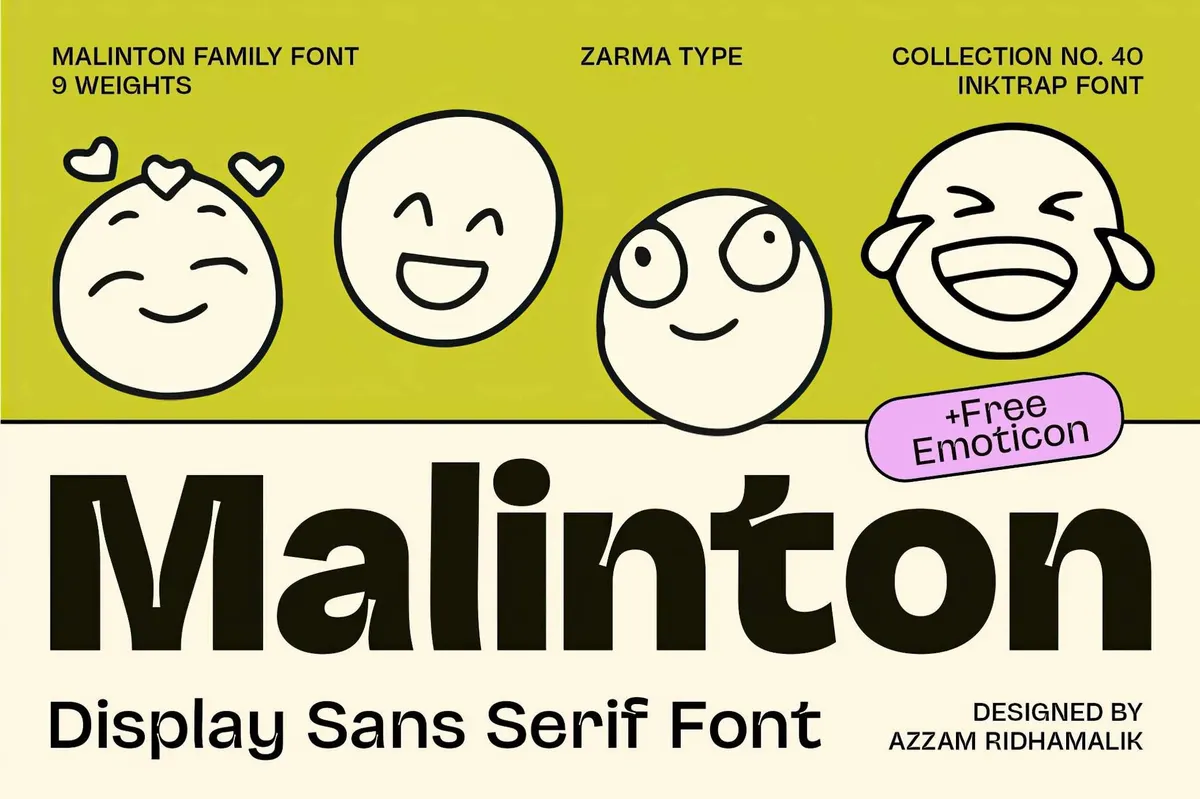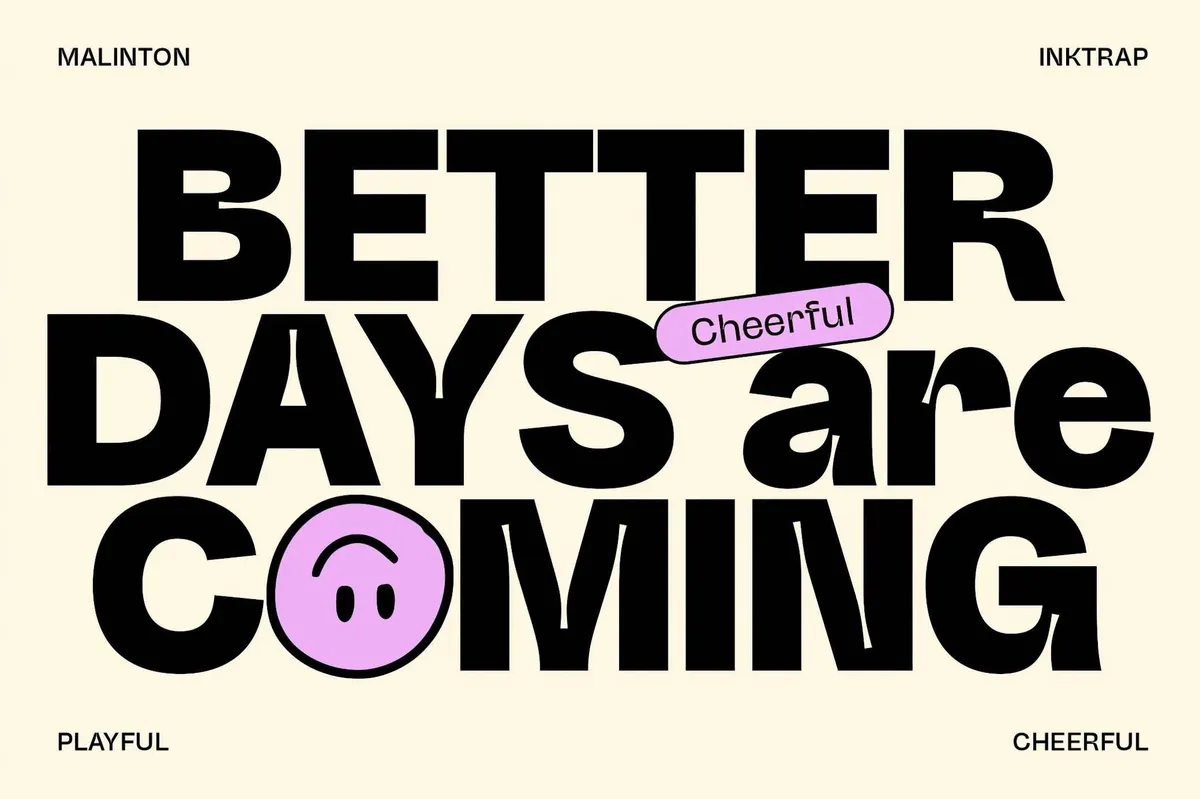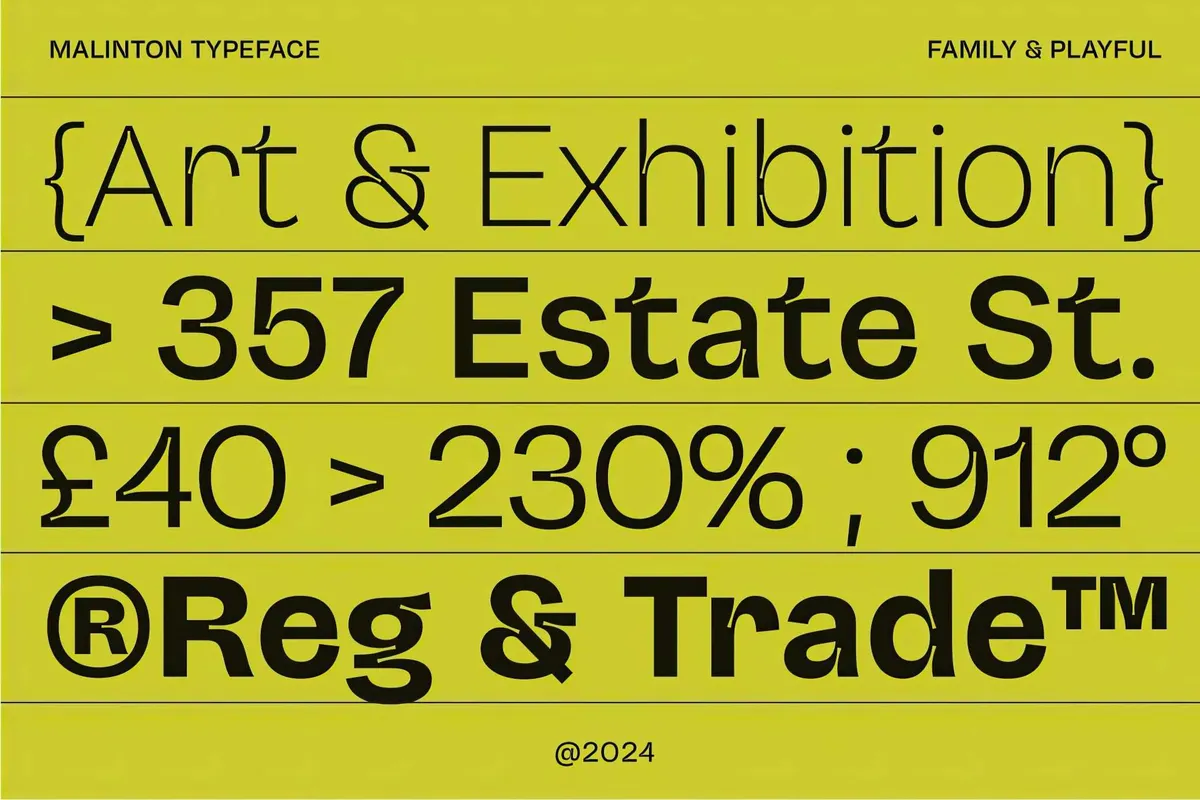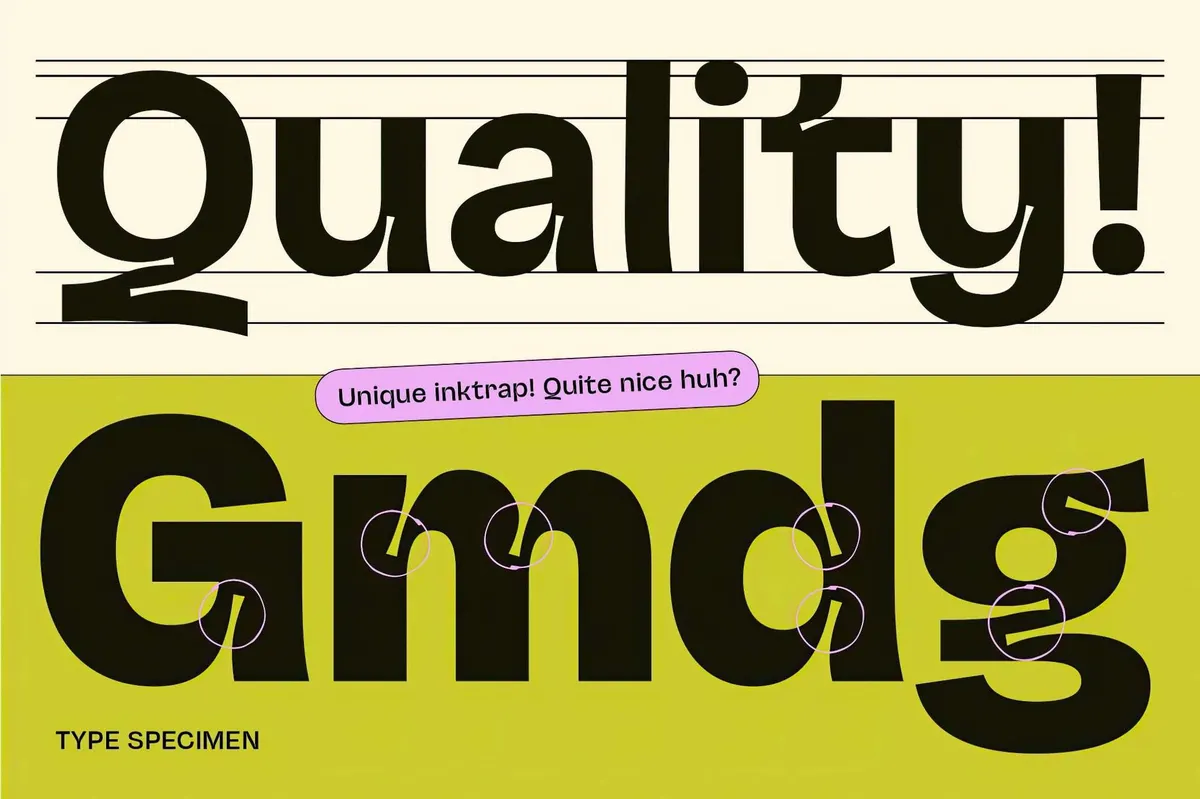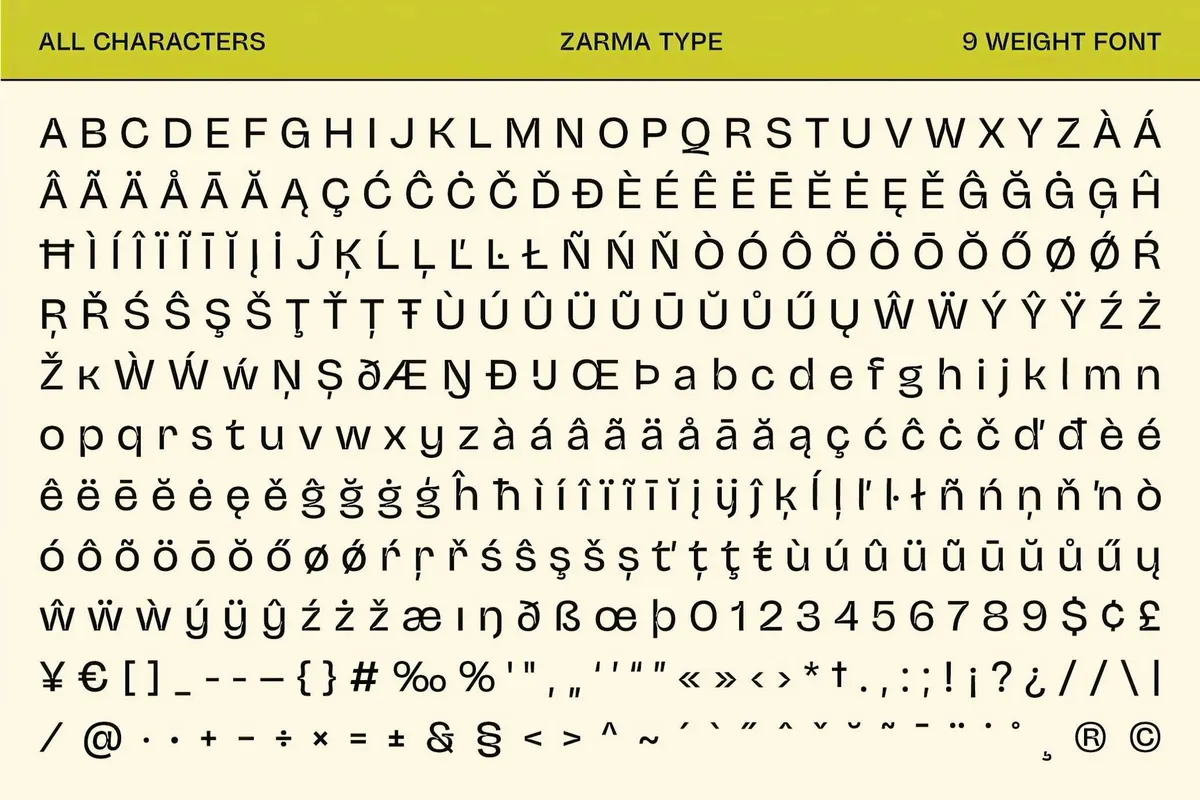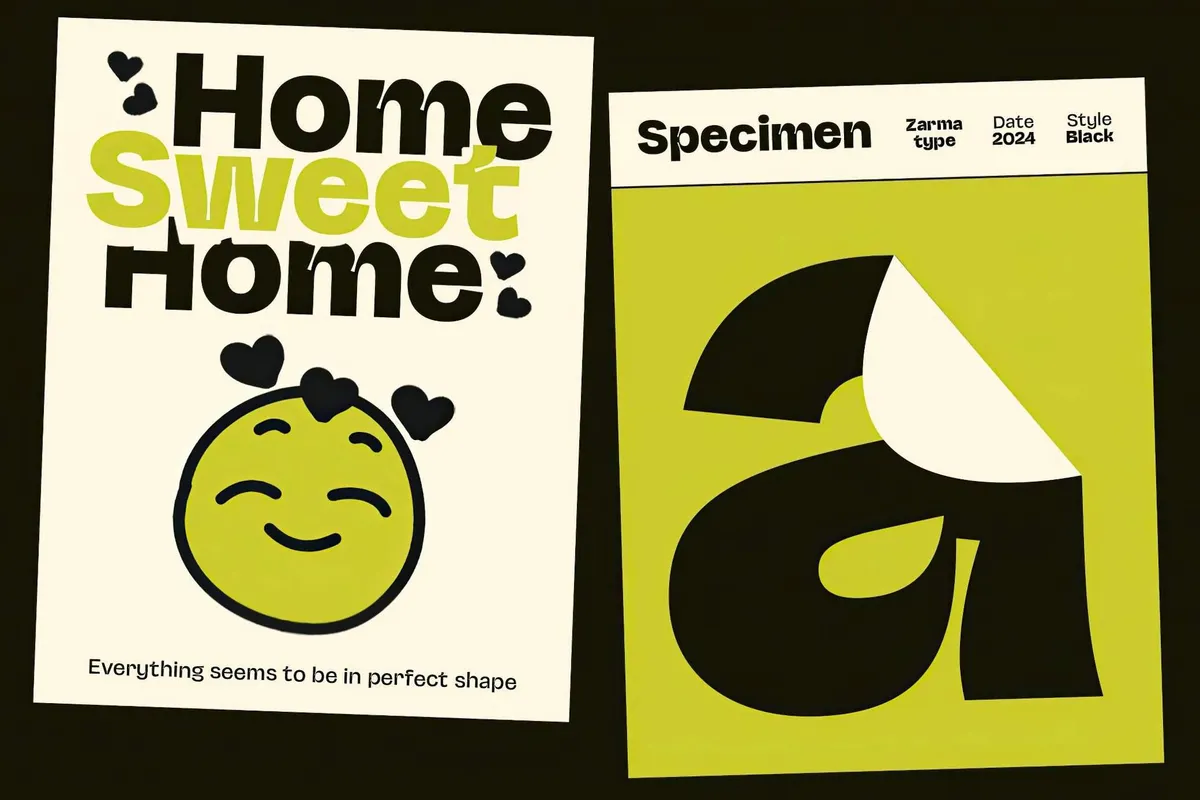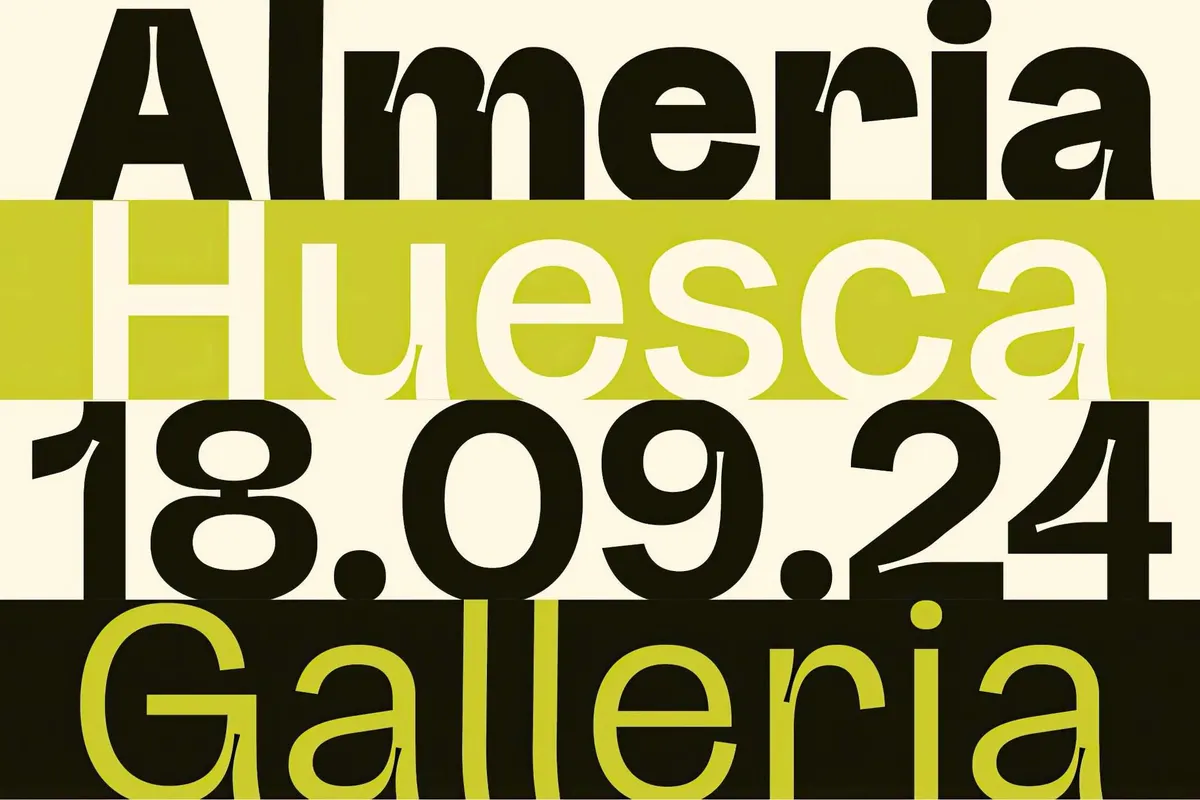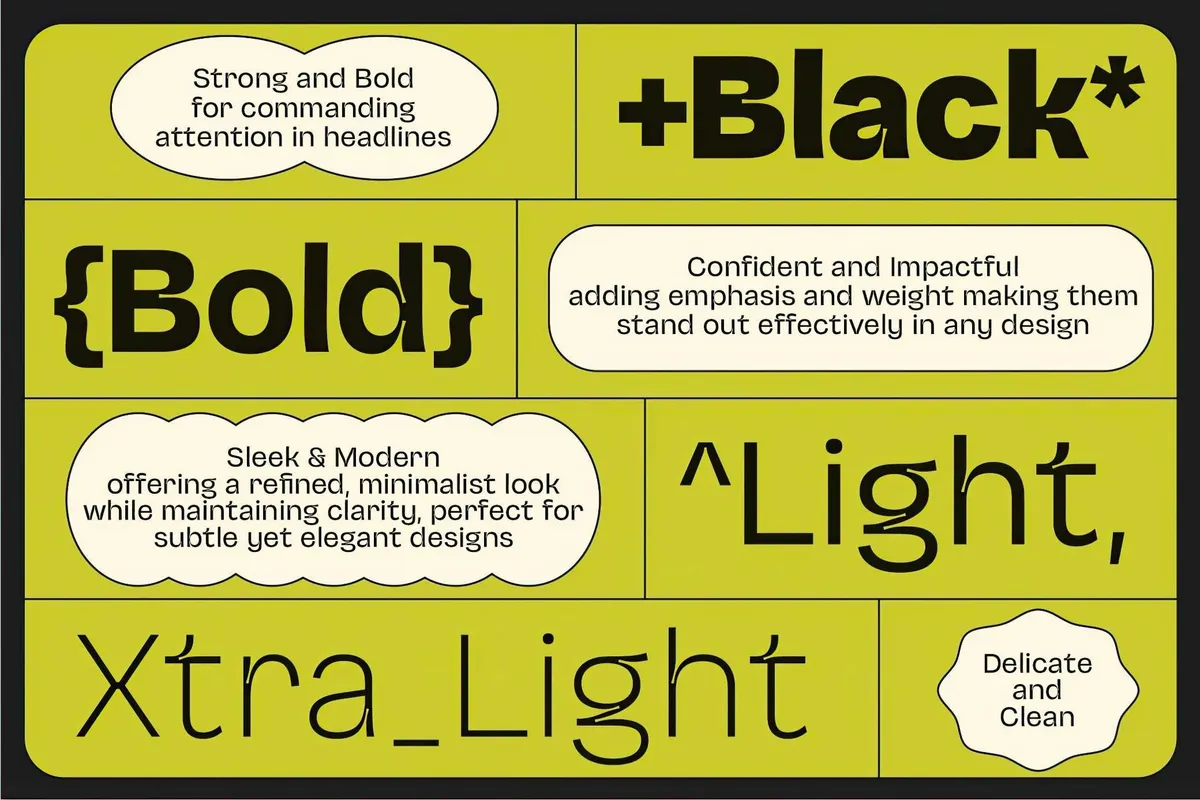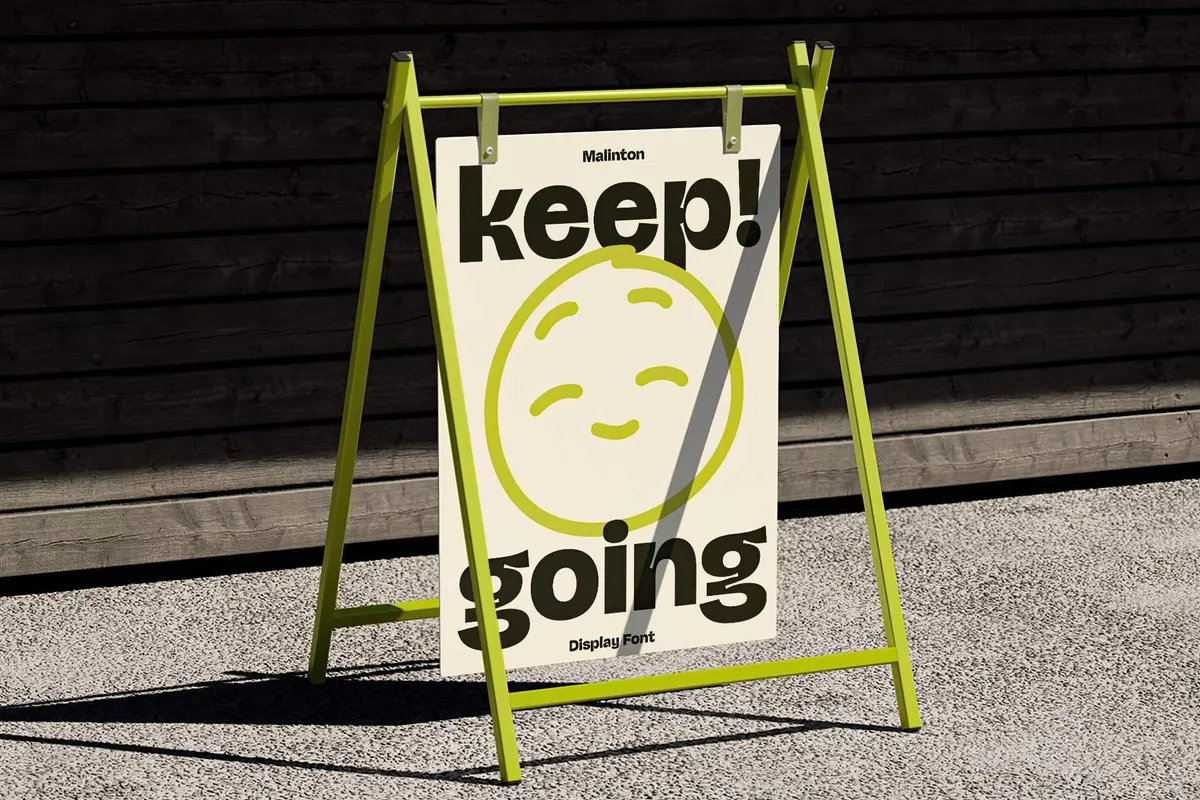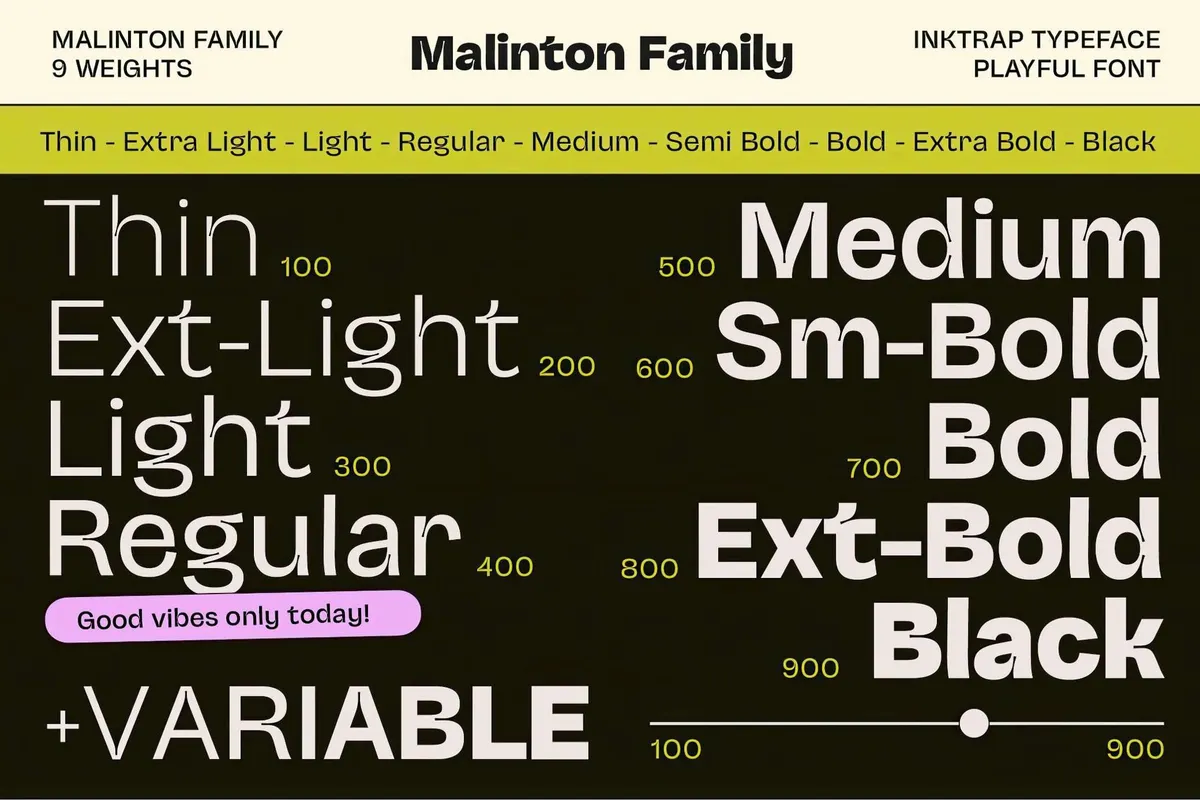
Malinton — Display Sans Font Family
The sentence written in Malinton font grins, winks, and bursts into laughter. Just look at those letter shapes! With its soft inktraps and endearing quirks, Malinton thrives in everything from joyful branding to editorial layouts and feel-good posters. This 9-weight sans serif (from ultra-light to boldest black) is packed with personality, giving you all the tools to fine-tune the tone of your designs. And those emoticon alternates? They’re the typographic equivalent of a high-five.
Malinton is a perfect choice for brands that want to feel approachable without losing structure. The use cases are pretty wide — kids’ magazine, lifestyle app, or adding a pinch of whimsy to your social content — this font family adds just the right amount of bounce and charm. Plus, it supports over 80 languages.